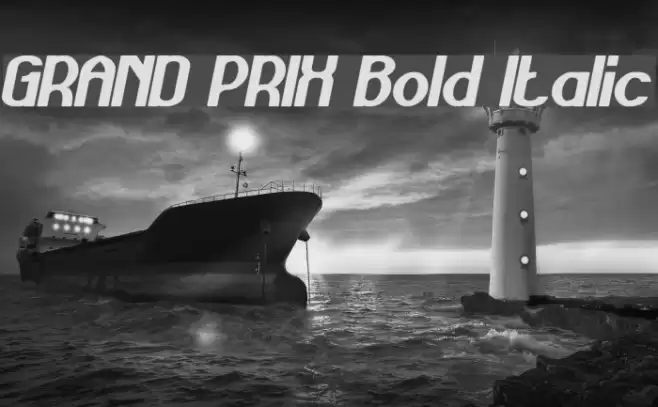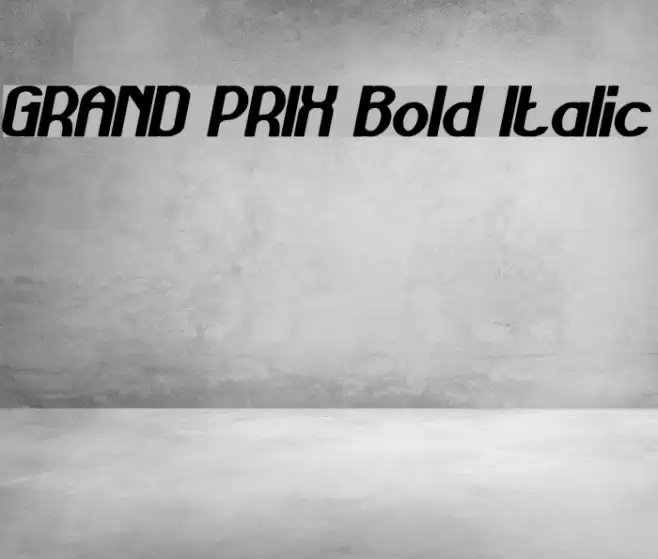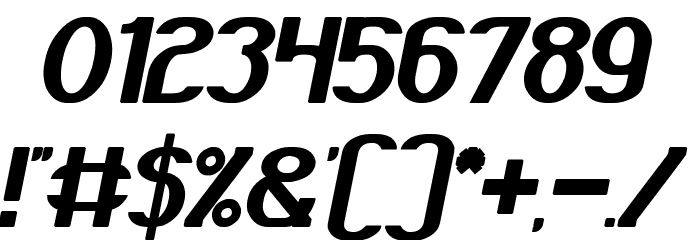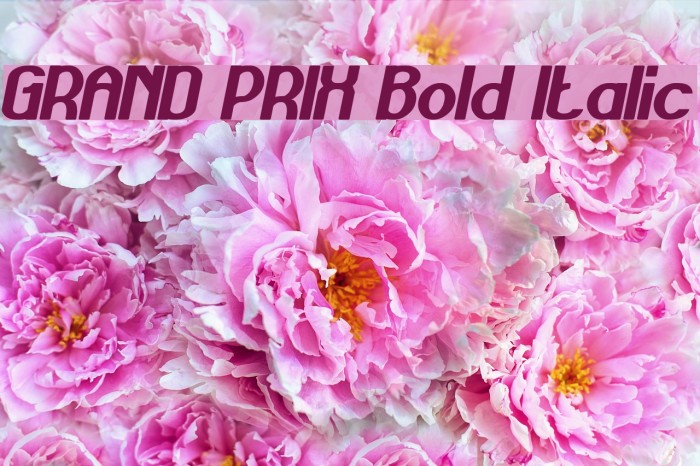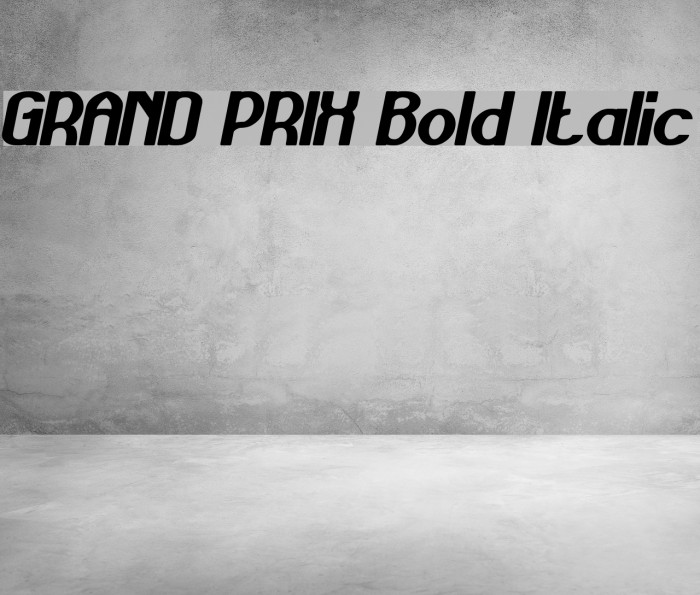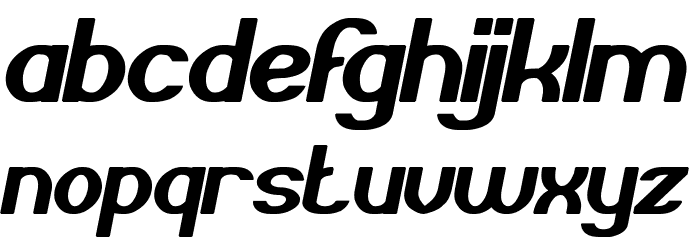
GRAND PRIX Bold Italic Font
GRAND PRIX Bold Italic Description
This font features a bold and italic style with a modern and dynamic appearance. The characters are slightly slanted, giving a sense of motion and energy. The strokes are thick and consistent, providing a strong visual impact. The uppercase and lowercase letters maintain a uniform style, with rounded edges and smooth curves. The numerals and special characters are designed to match the overall aesthetic, ensuring a cohesive look across all text. This font is ideal for projects that require a bold statement and a contemporary feel.
A bold, italic font with a modern, dynamic style and strong visual impact from Uncategorized fonts.
- Proposed Projects: Ideal for branding, sports event posters, automotive advertisements, and dynamic logo designs.